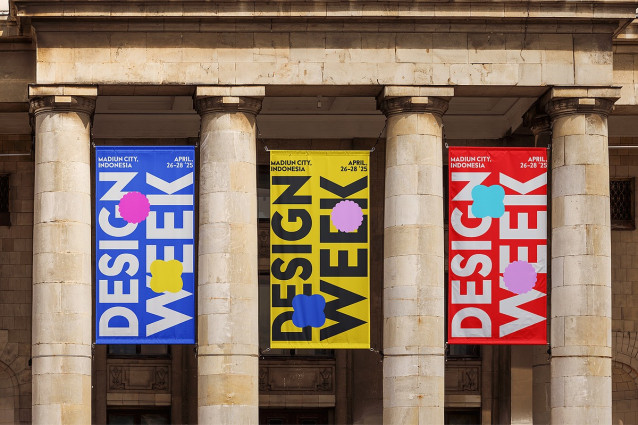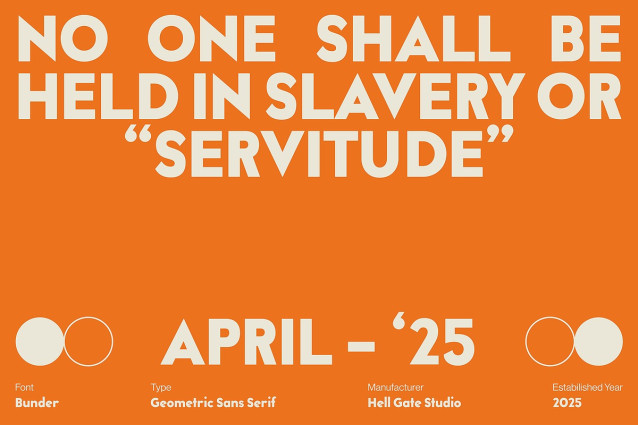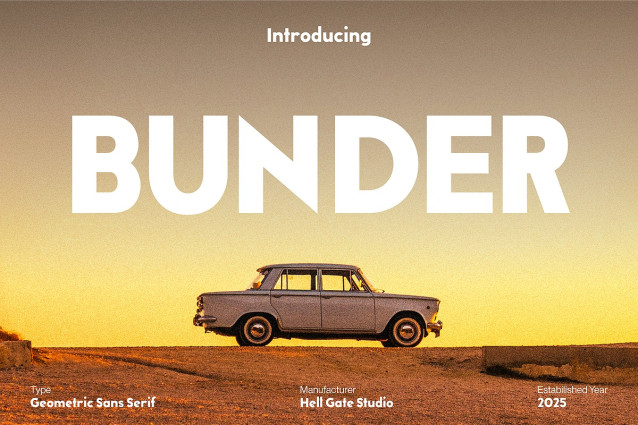
Bunder Font
Bunder Font is a geometric sans serif font that exudes elegance and sophistication. This versatile font is incredibly user-friendly, allowing for effortless text and color editing.
Crafted with meticulous attention to detail, the Bunder font ensures high-quality render for optimal visual appeal. Included in the package is an OTF file, serving as your key to creating stunning graphics and superb designs. Unleash your creative spirit with the Bunder font, transforming ordinary works into extraordinary masterpieces.